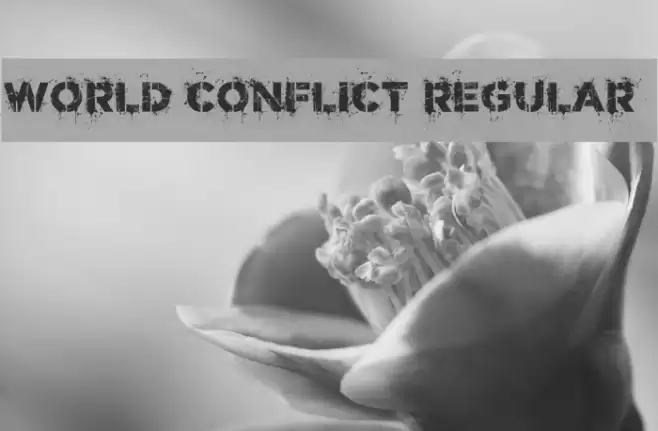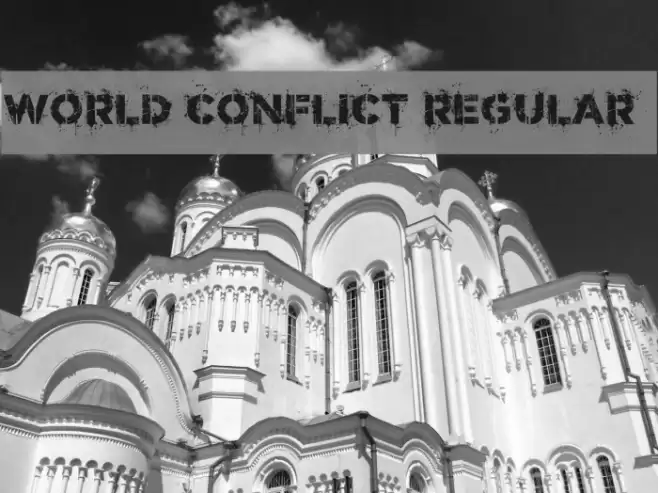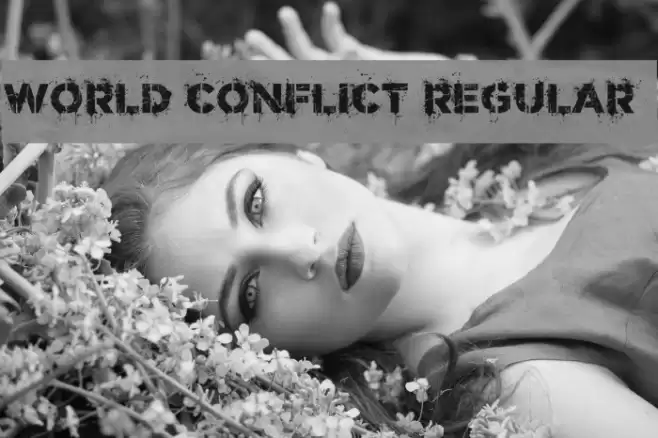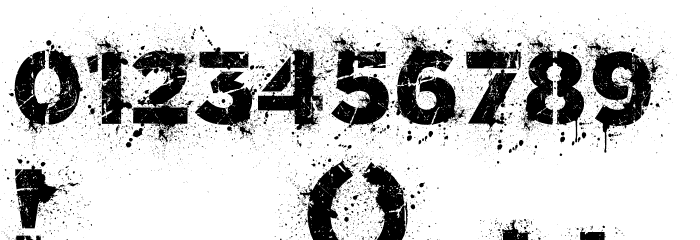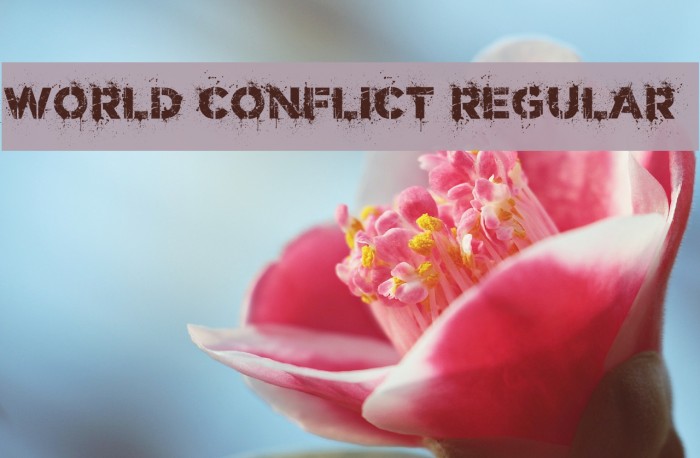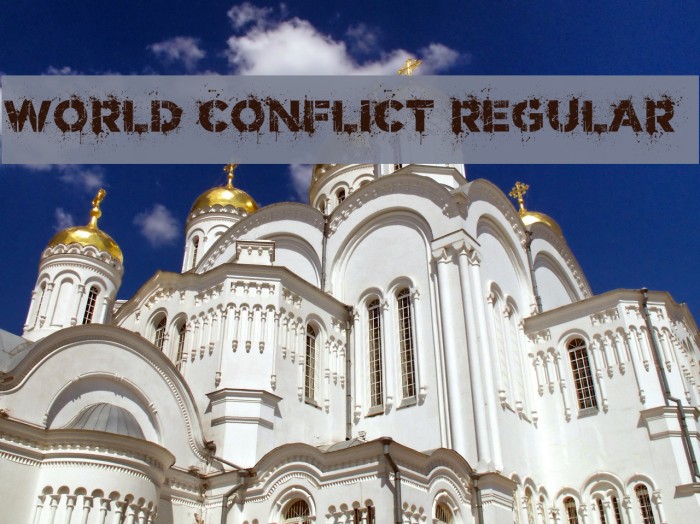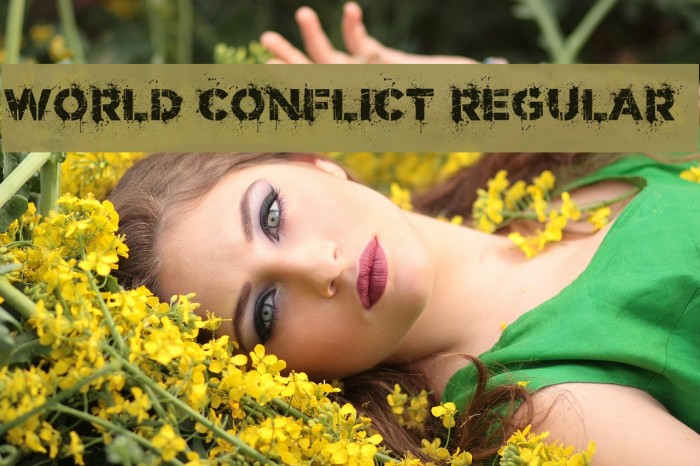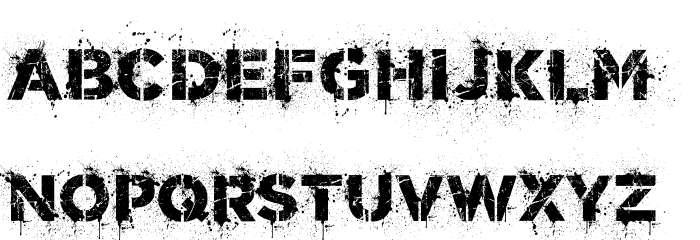
World Conflict Regular Font
World Conflict Regular Description
This font features a rugged, distressed appearance, reminiscent of graffiti or urban decay. The characters are bold and heavily textured, with a splattered effect that gives them a gritty, worn look. The uppercase letters are uniform in height, while the numbers and special characters maintain the same distressed style. This font is ideal for projects that require a strong, impactful visual presence, such as posters, album covers, or video game titles. Its unique style captures attention and conveys a sense of rebellion or edginess.
A bold, distressed font with a gritty, splattered appearance from Uncategorized fonts.
- Proposed Projects: Ideal for posters, album covers, video game titles, and urban-themed designs.